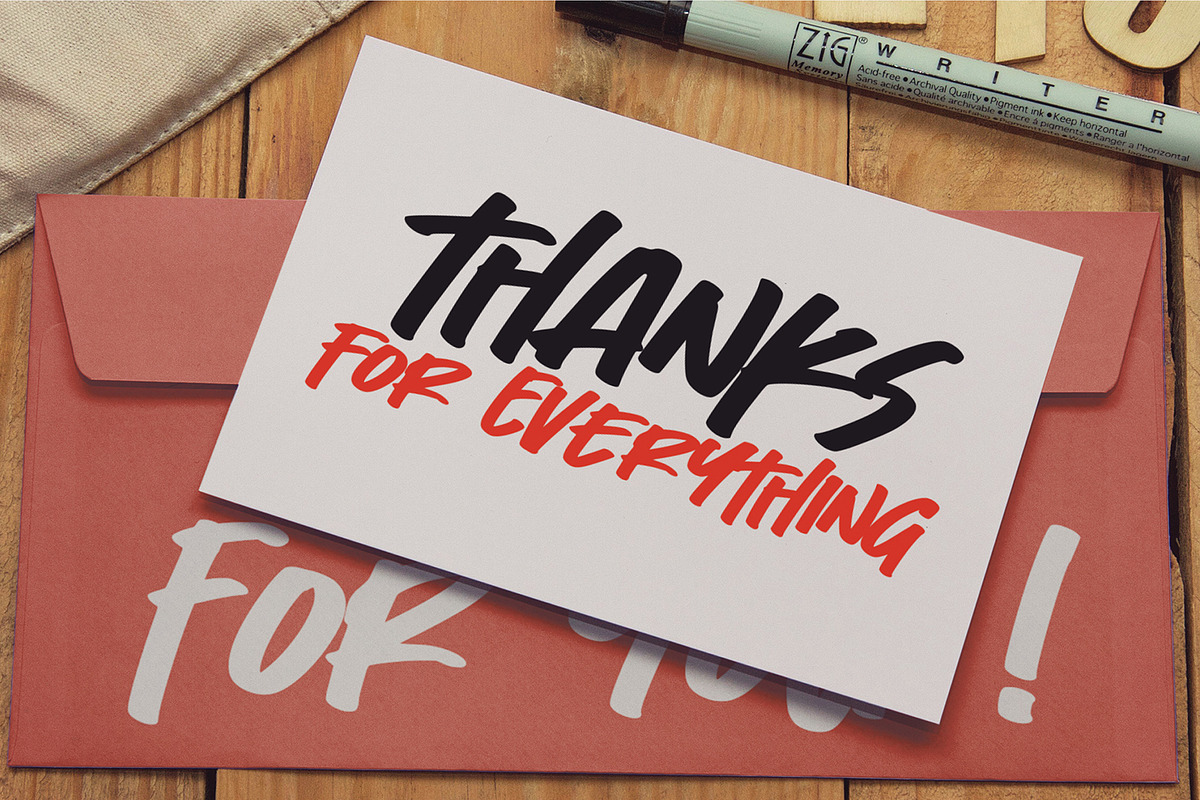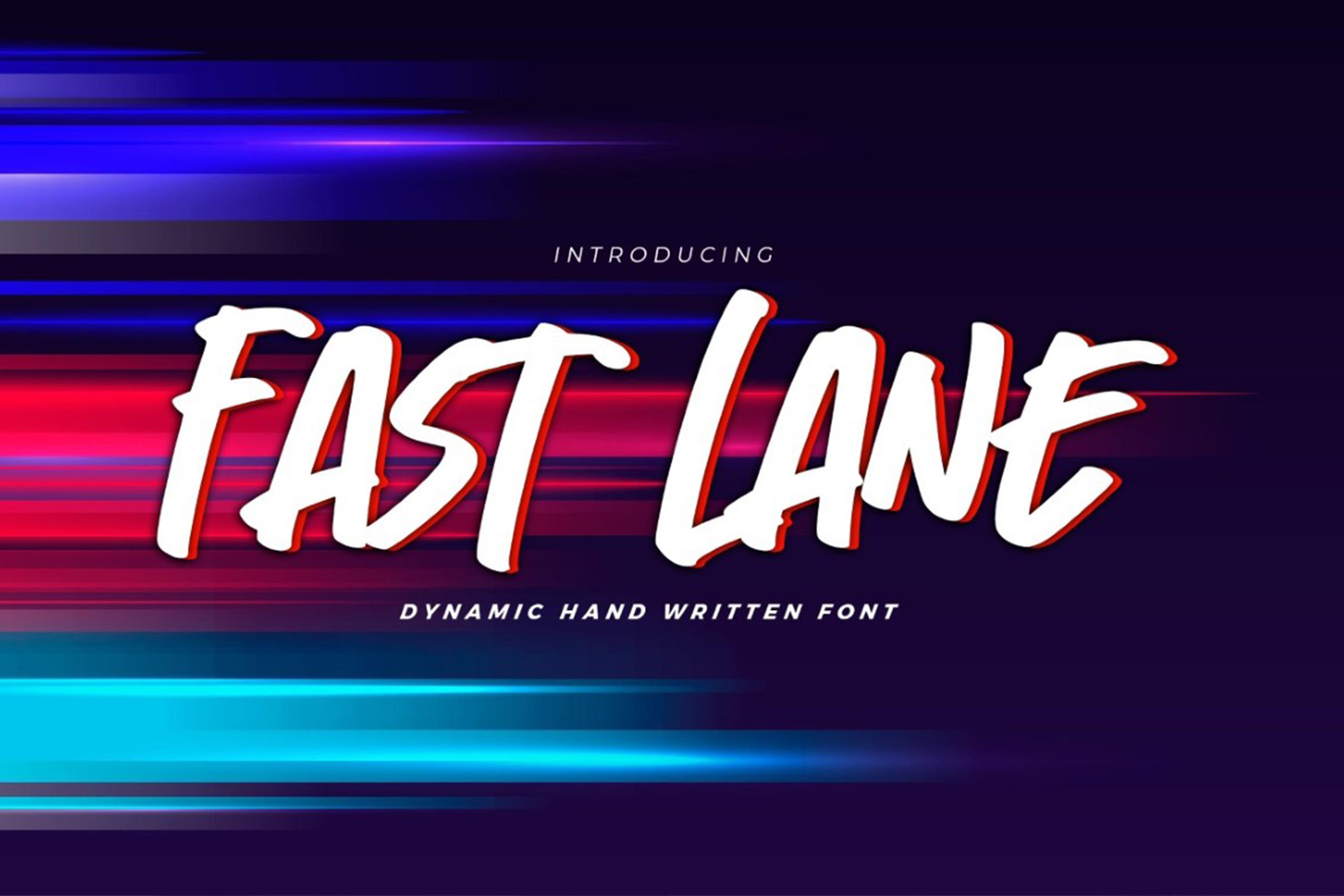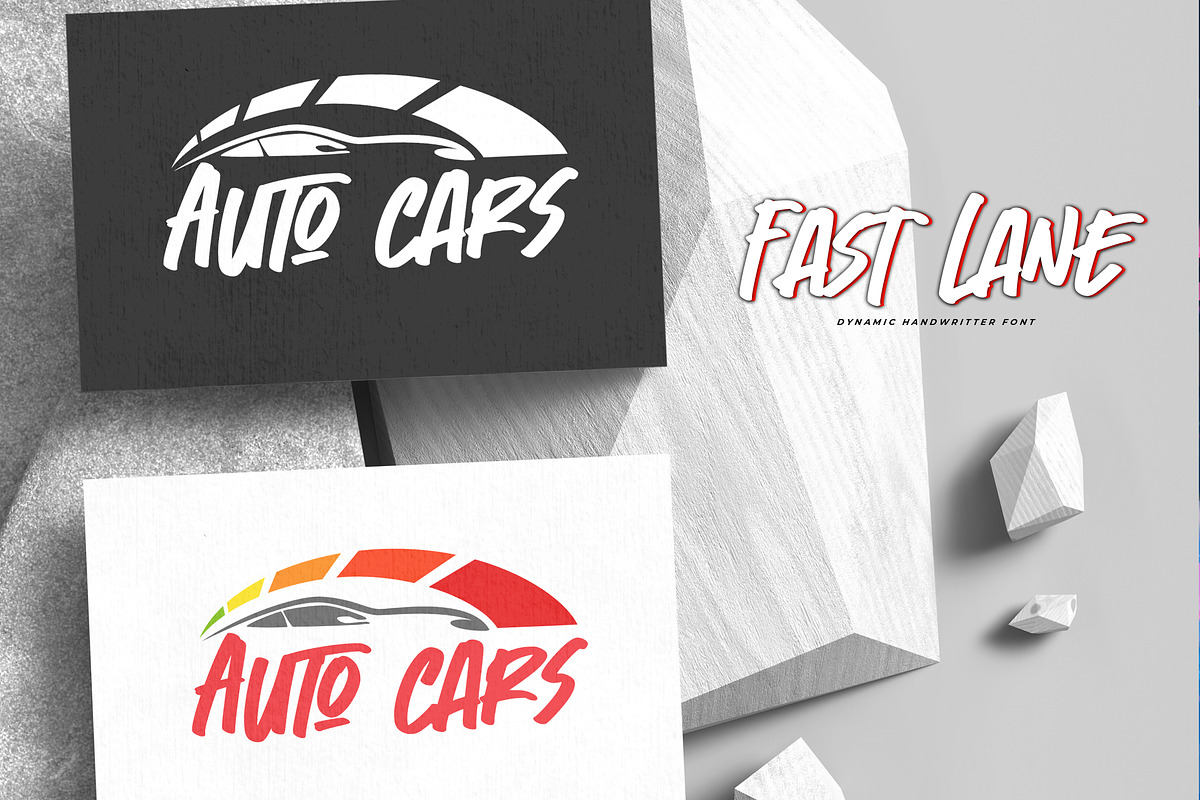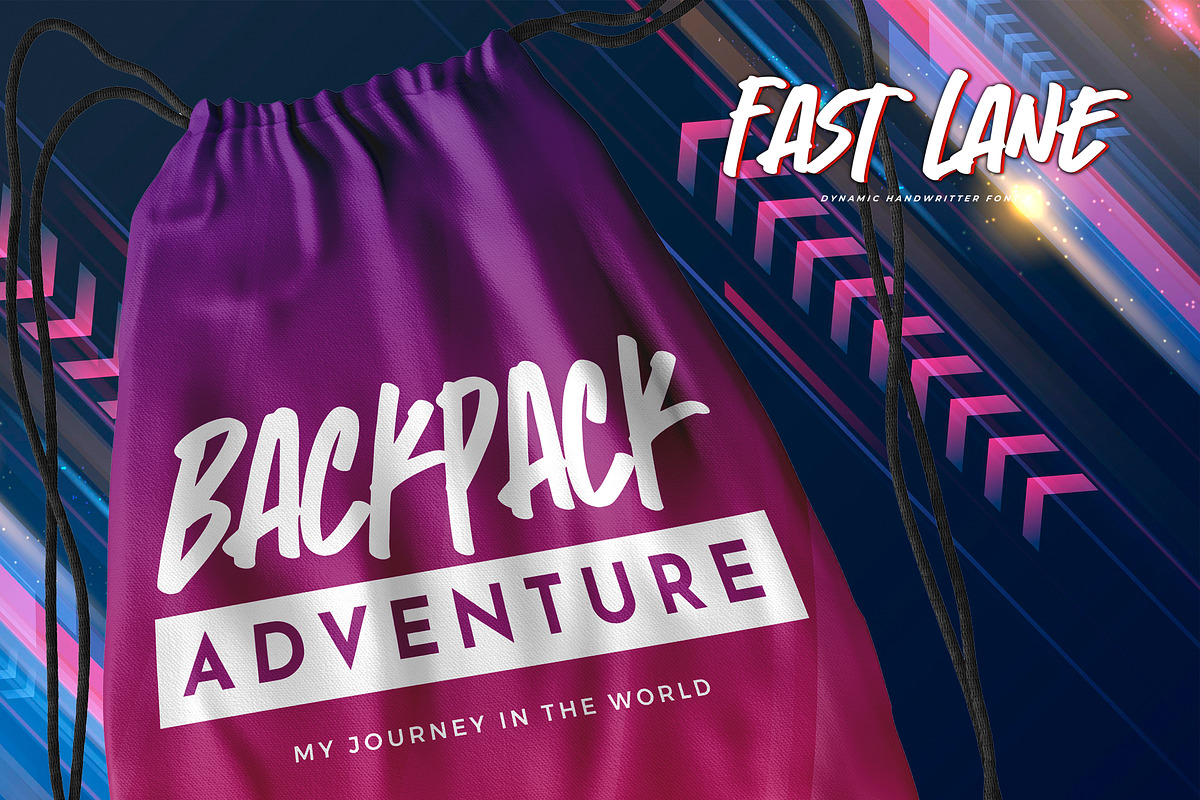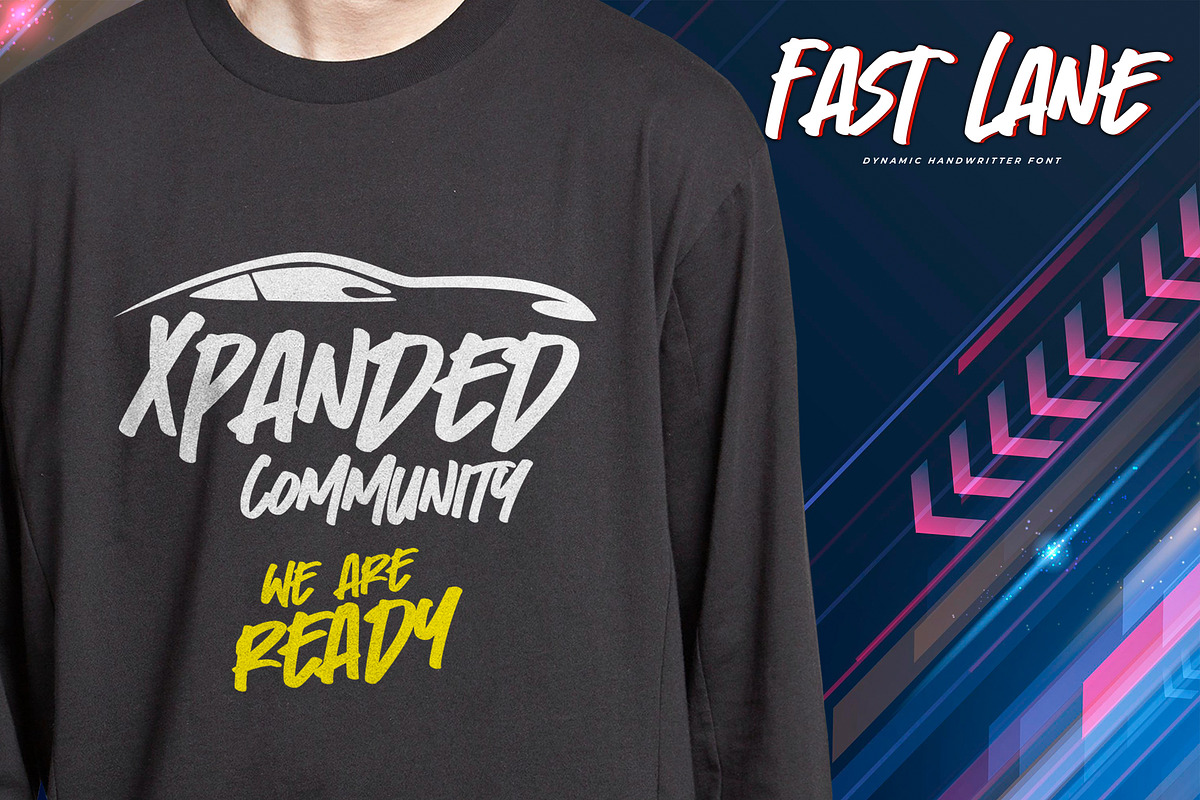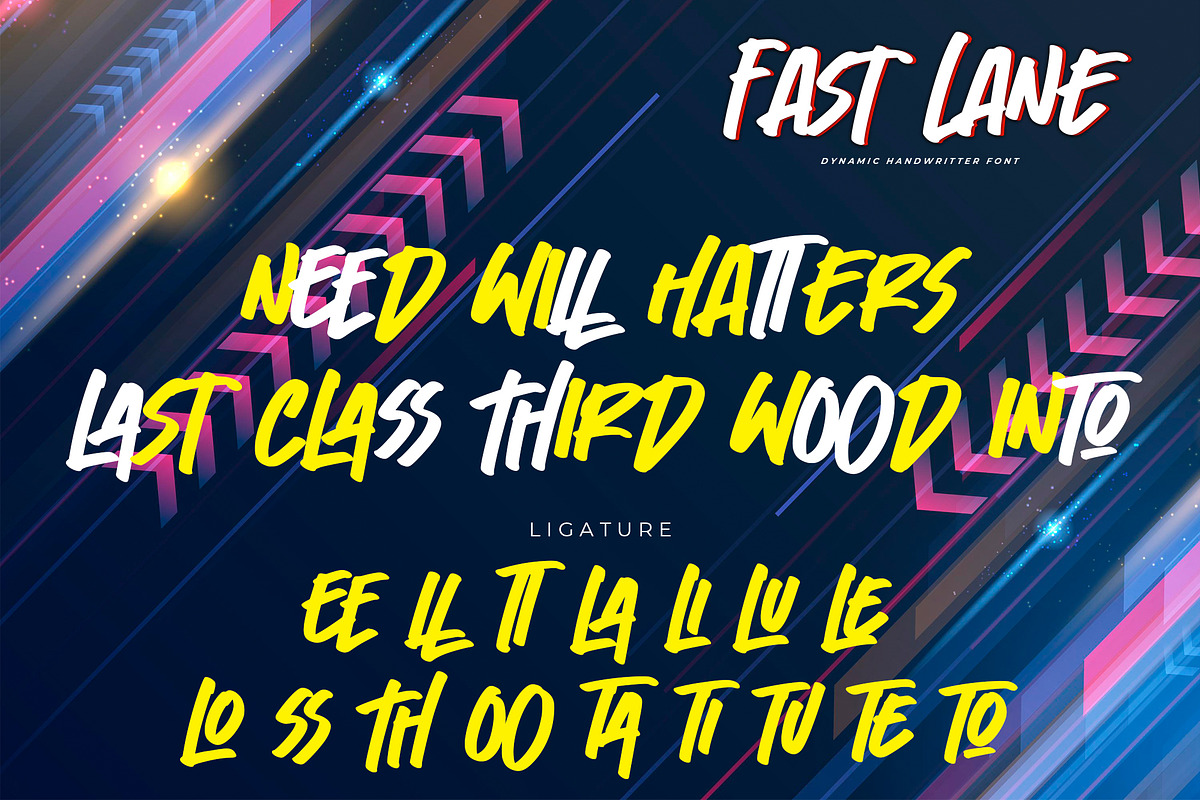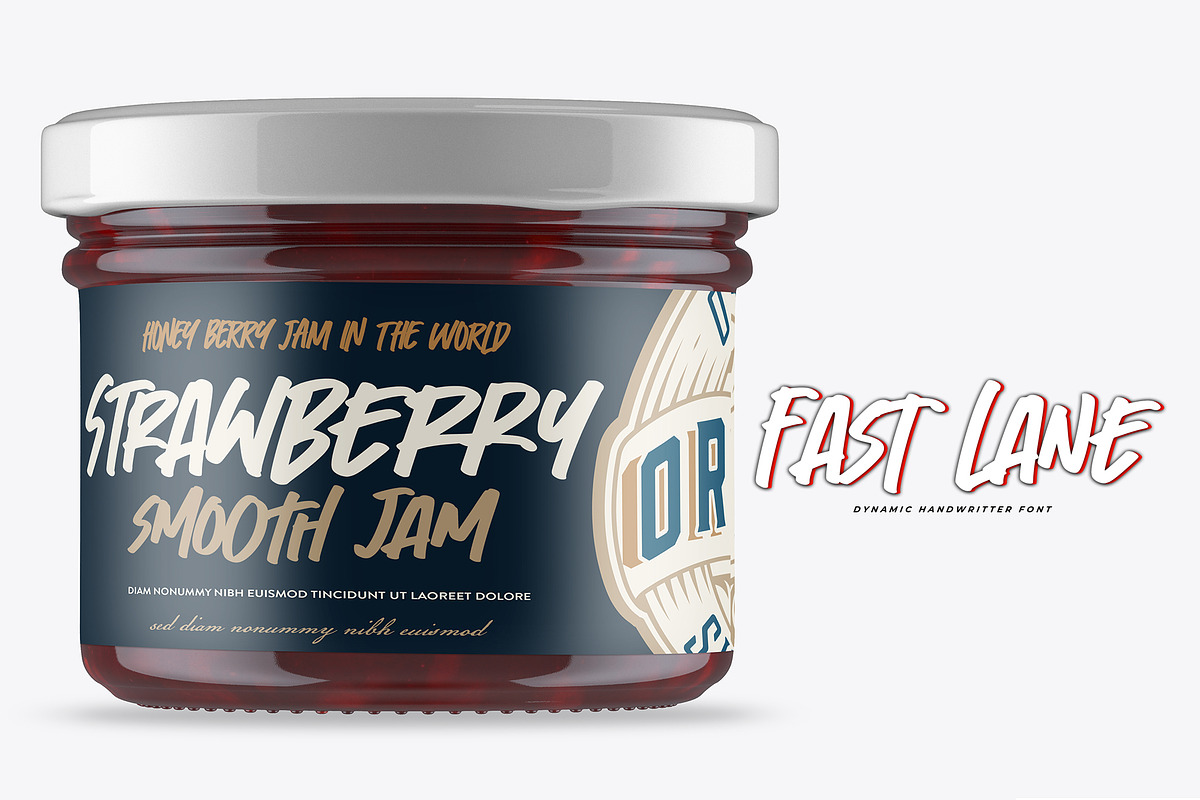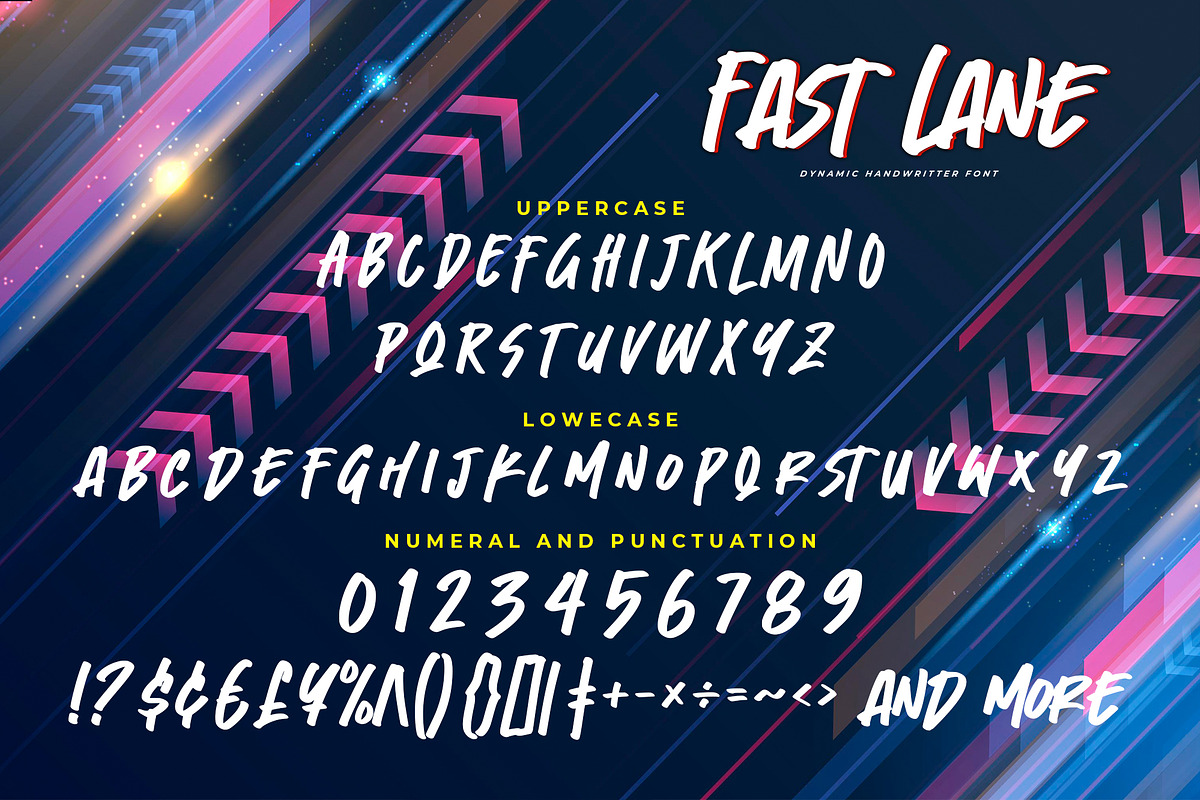
Fast Lane - Dynamic Handwritten Font
Fast Lane - Dynamic Handwritten Font with a natural style and dramatic movement. Crafted manually with love and passion, This font is great for your next creative project such as logos, printed quotes, invitations, cards, product packaging, headers, Logotype, Letterhead, Poster, Label, and etc.